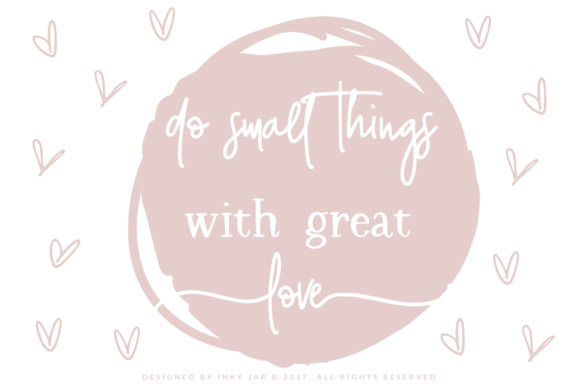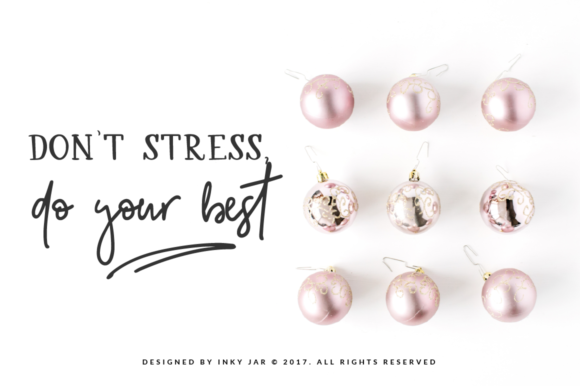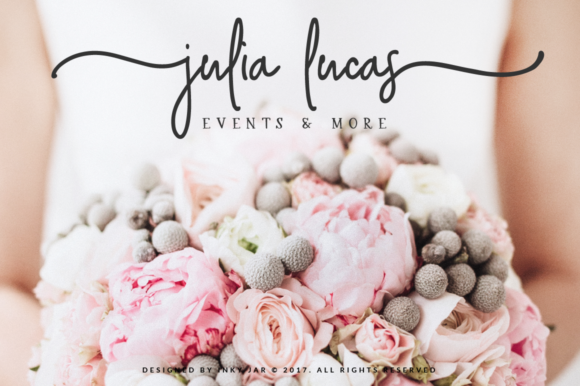
Introduction to Glorious Duo Font
The Glorious is a perfect branding combo which includes a signature style monoline script font and handwritten serif font.
But, that’s not all – it also contains a doodle font which has a lot of hand drawn shapes and is perfect for any branding or project Included as a bonus: -1 Adobe Illustrator (.
Key Features of Glorious Duo Font